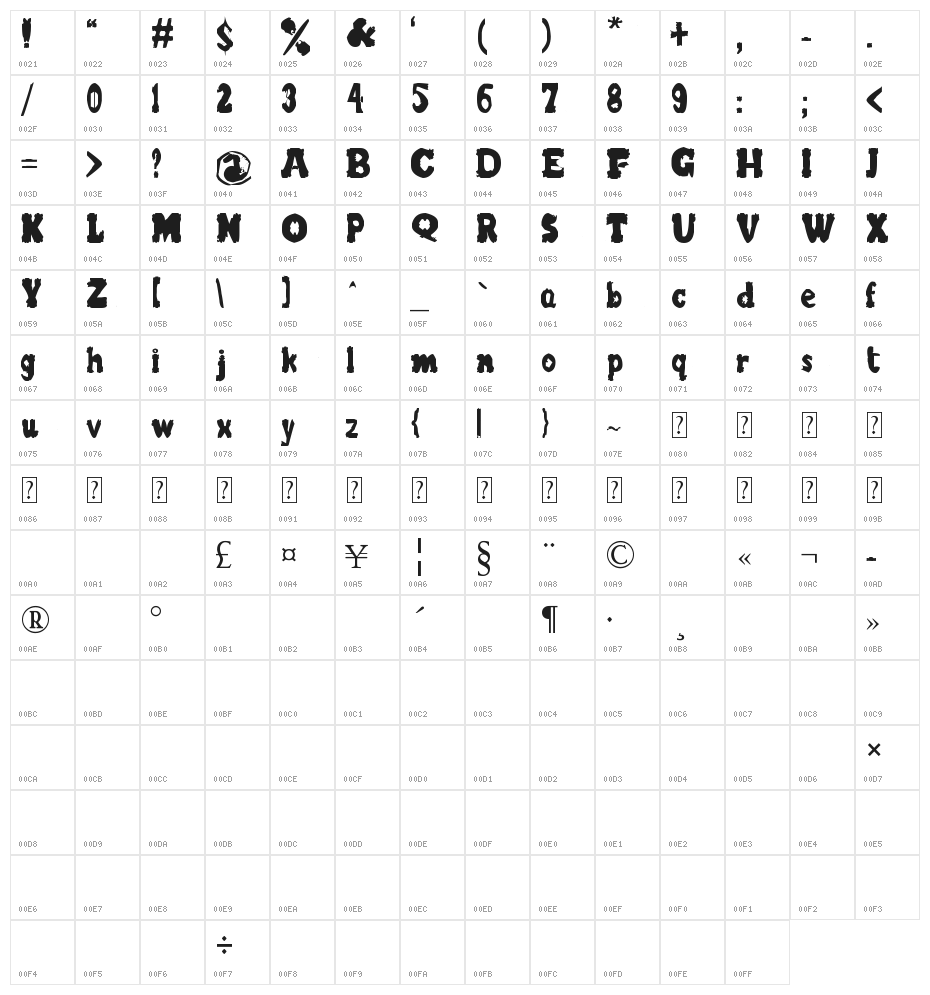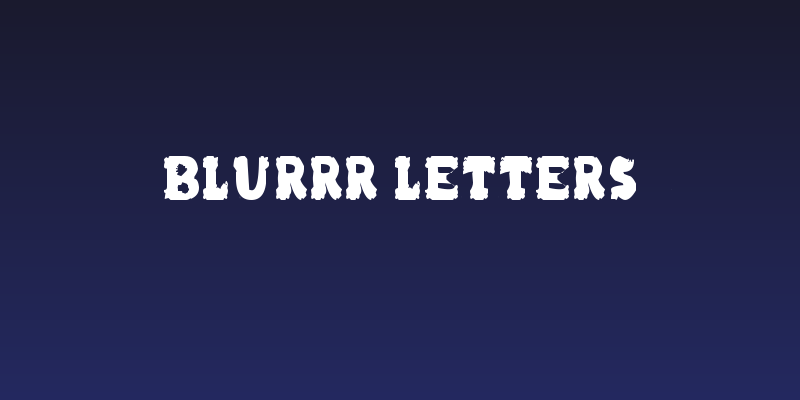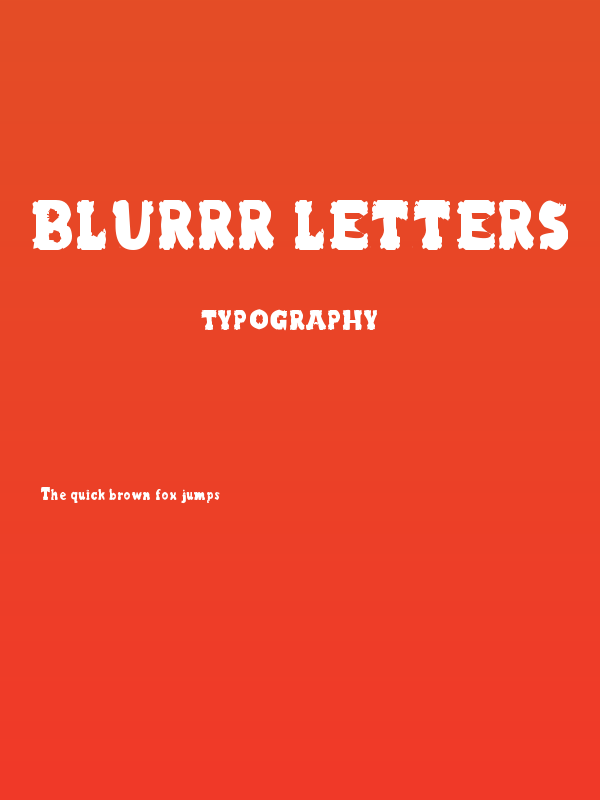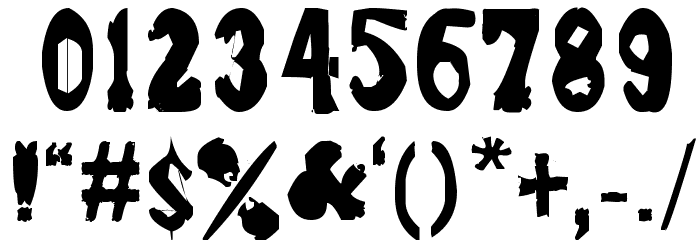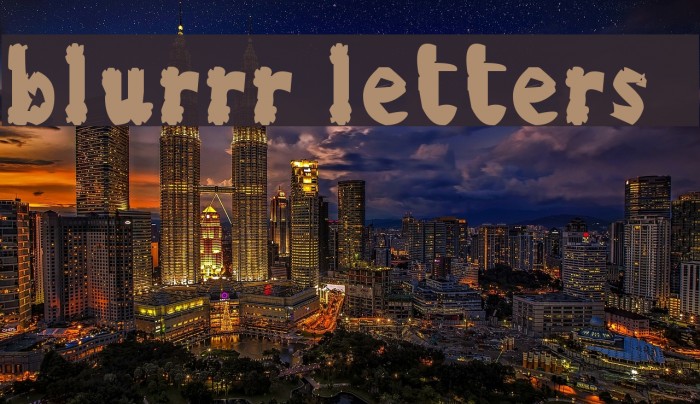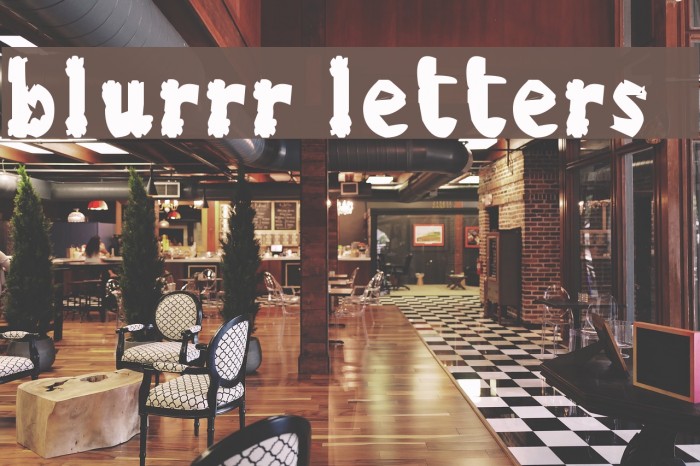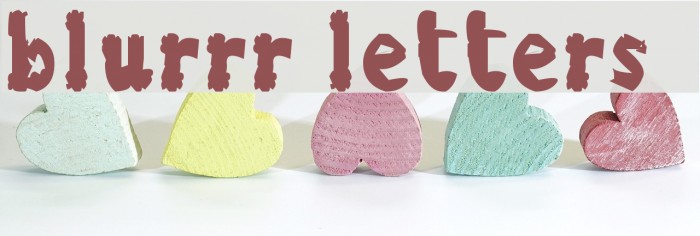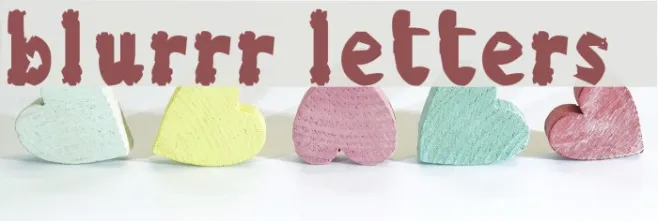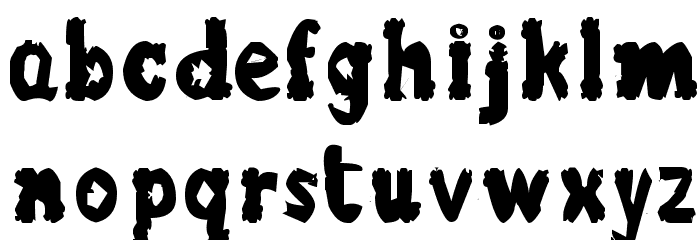
blurrr letters Font
blurrr letters Description
This font features a bold and distressed style, characterized by irregular edges and a grungy appearance. The letters have a heavy weight and a unique, artistic flair that makes them stand out. The uppercase and lowercase letters maintain a consistent design, with each character exhibiting a rough, textured look that suggests a hand-crafted or weathered effect. The numbers and special characters follow the same aesthetic, providing a cohesive and visually striking set. This font is ideal for projects that require a bold statement or an edgy, unconventional look.
| Proposed Projects | Perfect for album covers, posters, streetwear branding, or any project needing a bold, edgy aesthetic. |